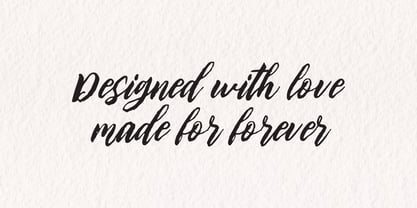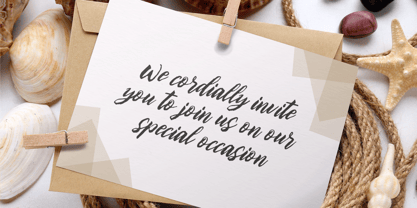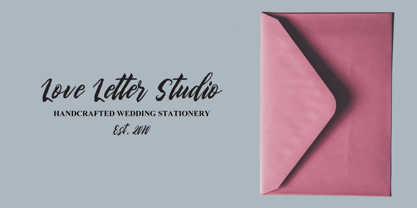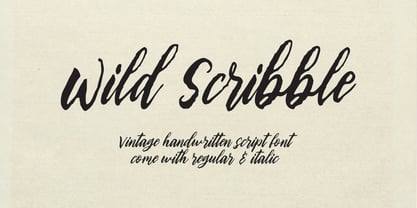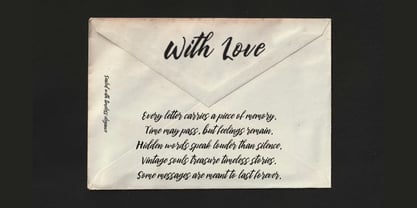
Wild Scribble Script
Die Schriftfamilie Wild Scribble Script wurde von Rizal Aiyub entworfen und von Fontysia veröffentlicht. Wild Scribble Script enthält 2 Stile und Familienpaketoptionen. Mehr über diese Familie
Wild Scribble Script is a vintage handwritten script font with natural brush strokes and elegant flowing characters. Designed to bring warmth, personality, and authentic handcrafted charm to branding, wedding invitations, logos, packaging, social media graphics, and editorial designs. Its smooth connections and expressive letterforms create a stylish, timeless look that stands out across both modern and classic projects.